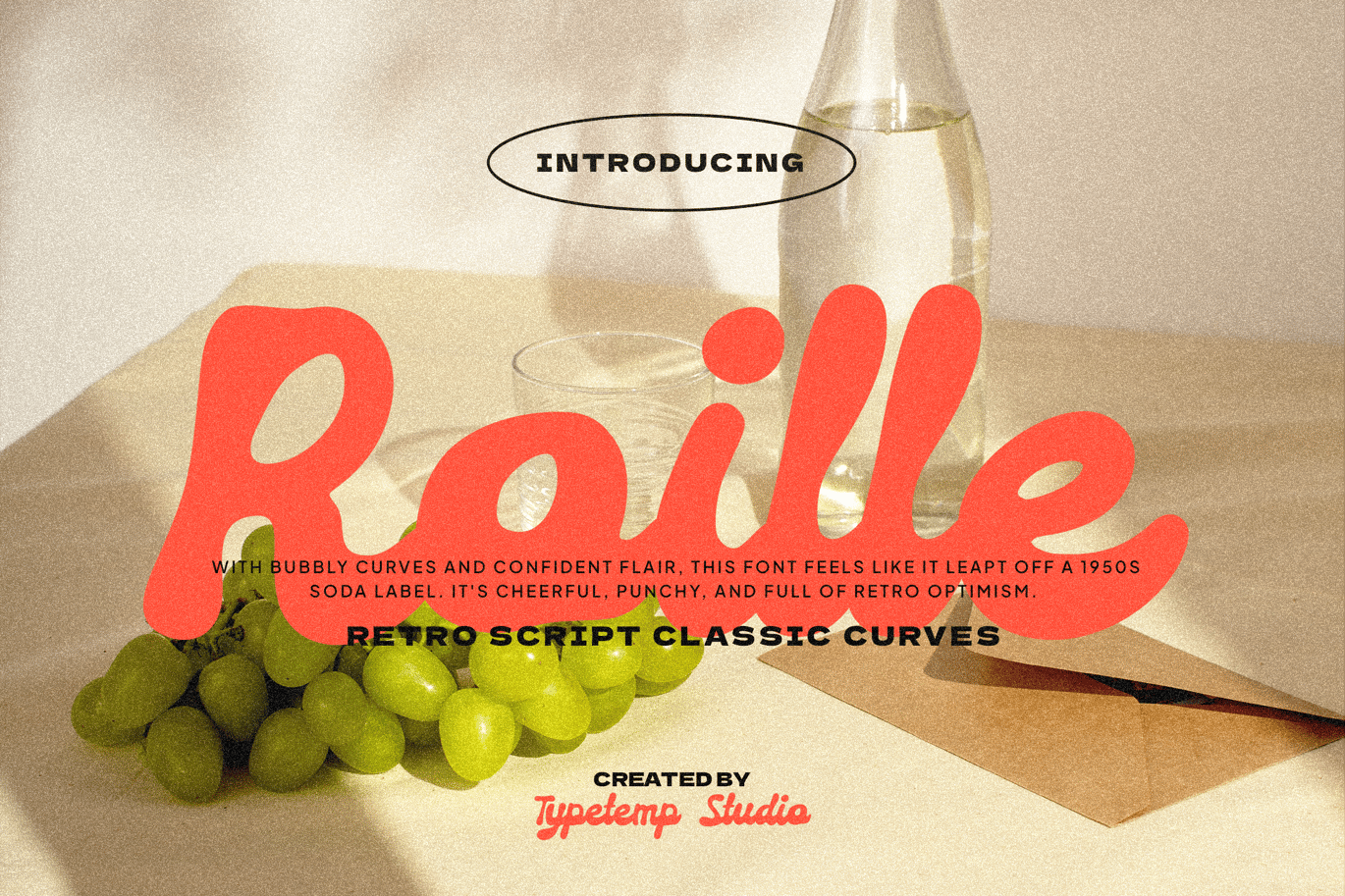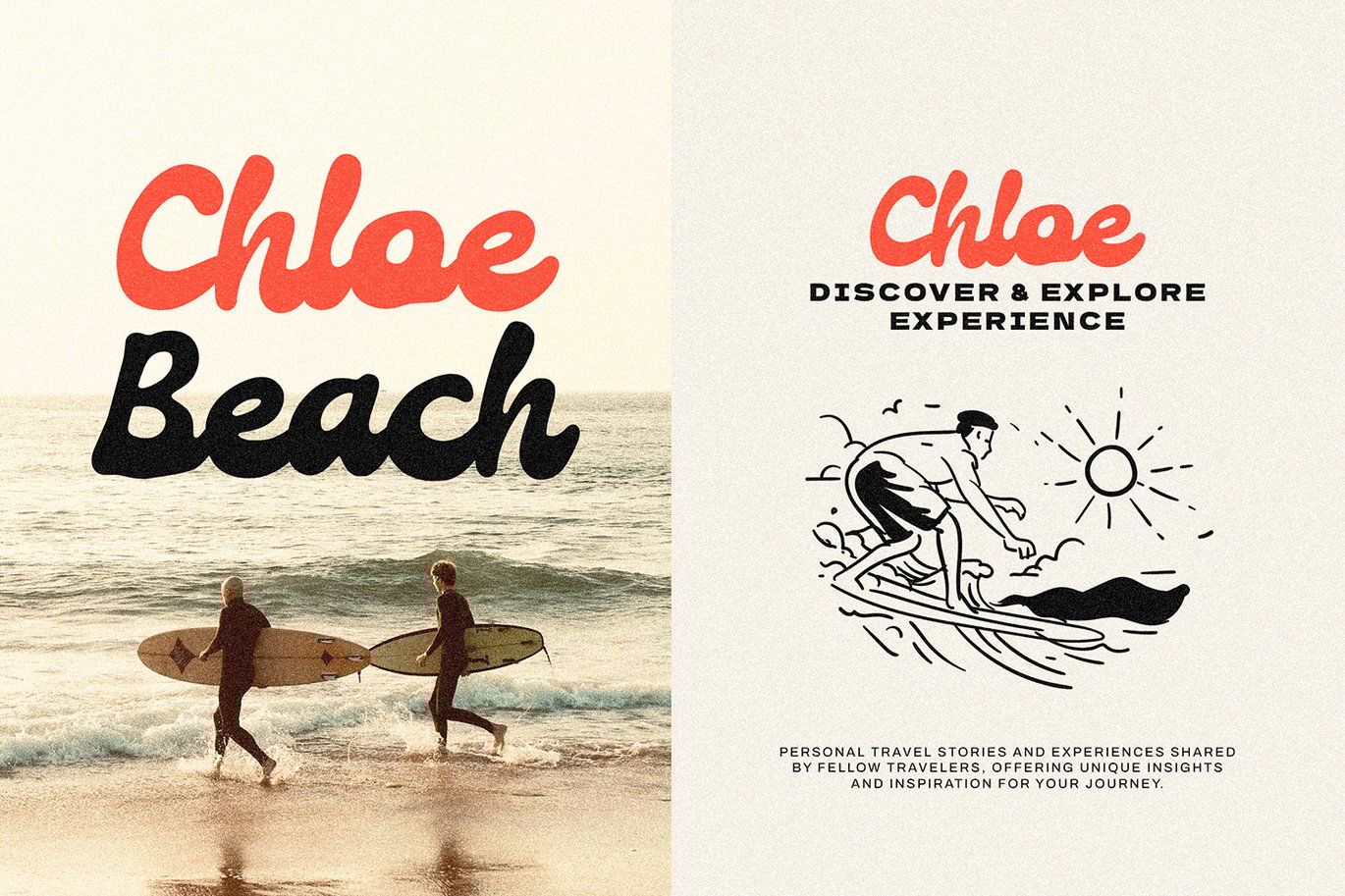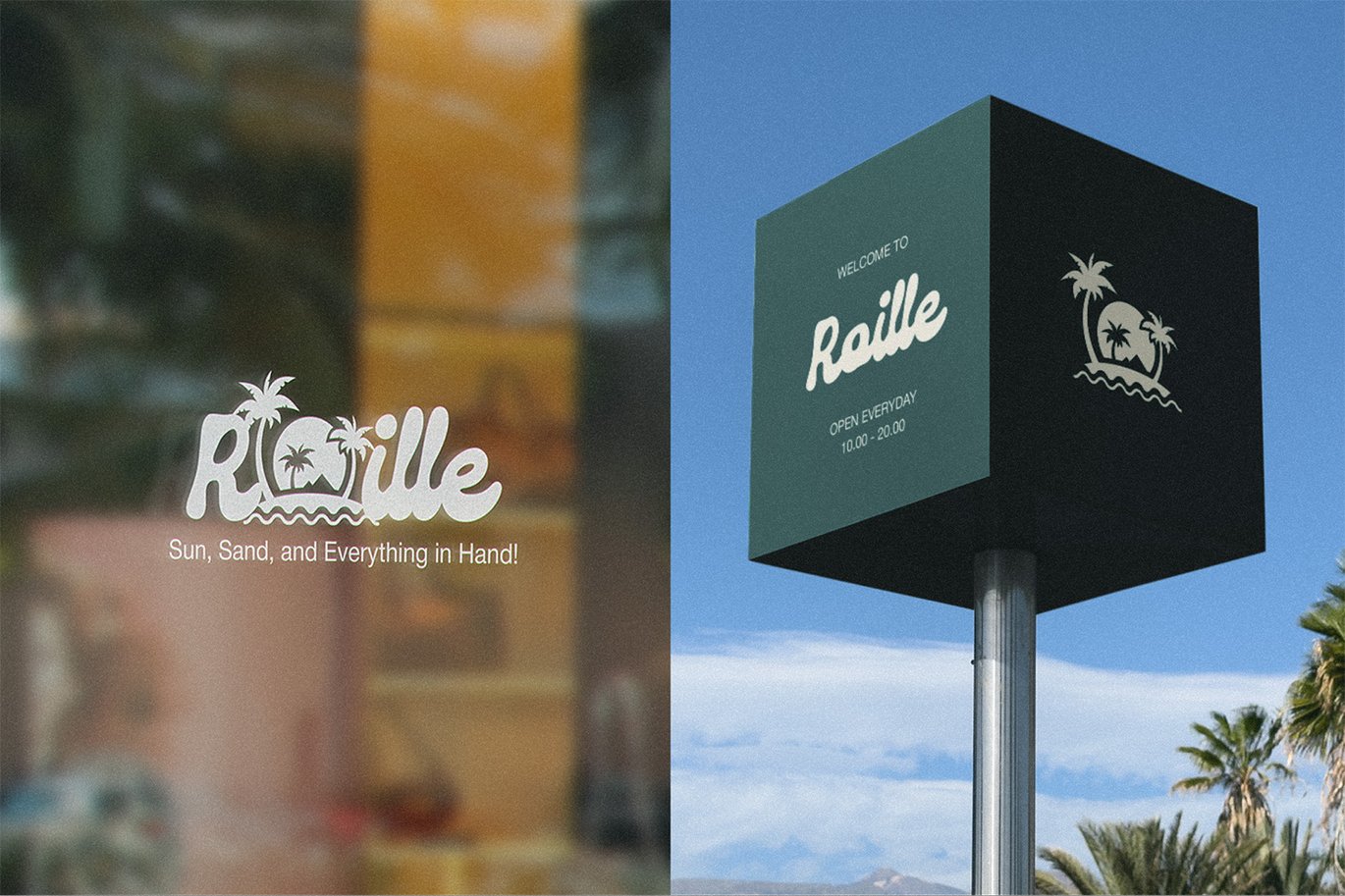
Roille Retro Script Classic Font
Roille Retro Script Classic Font is a versatile typeface ideal for various projects, including N/A, logos, branding, posters, blog headers, advertisements. The free version includes a full set of uppercase and lowercase letters, available in OTF, TTF, WOFF format.